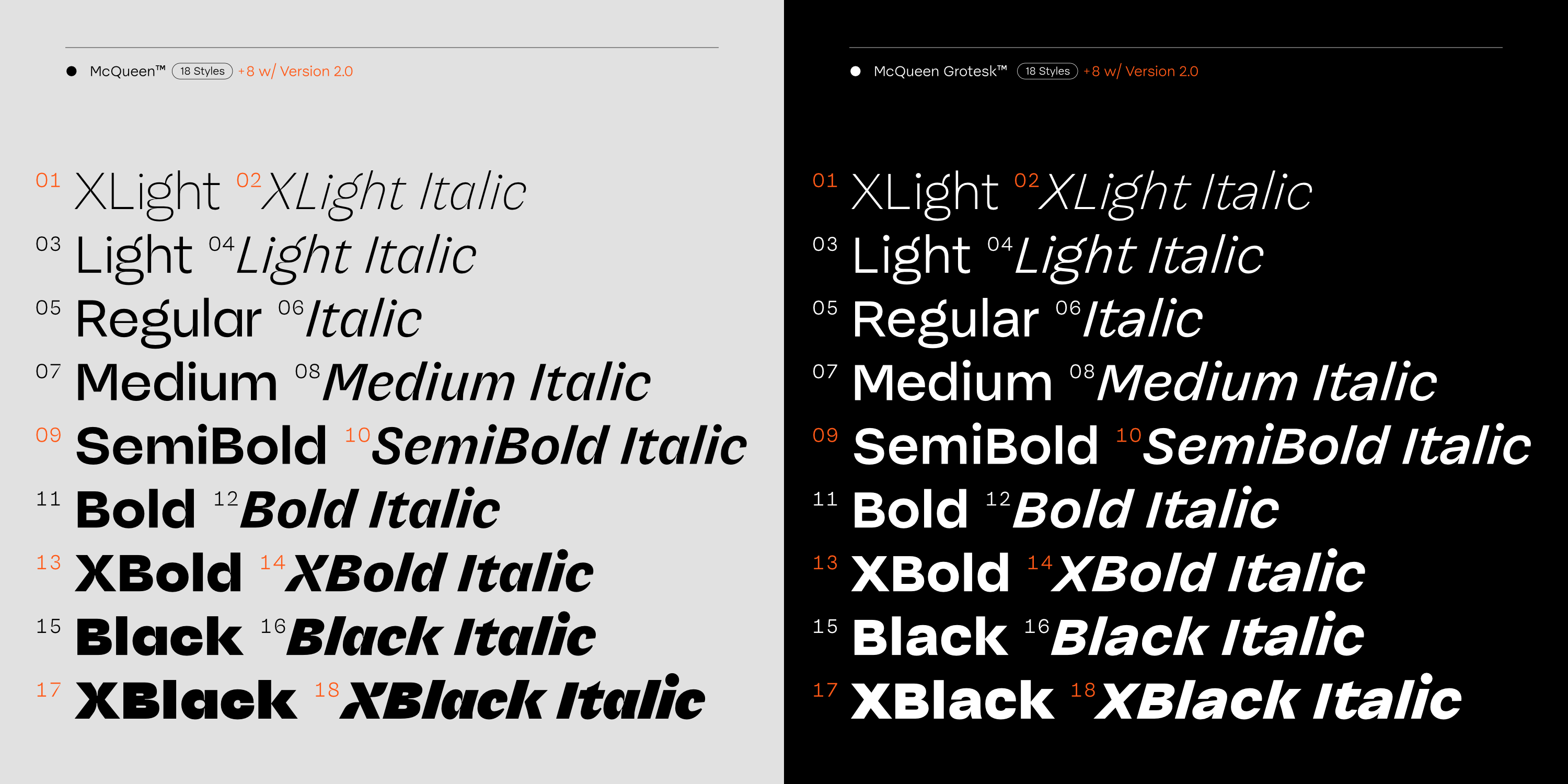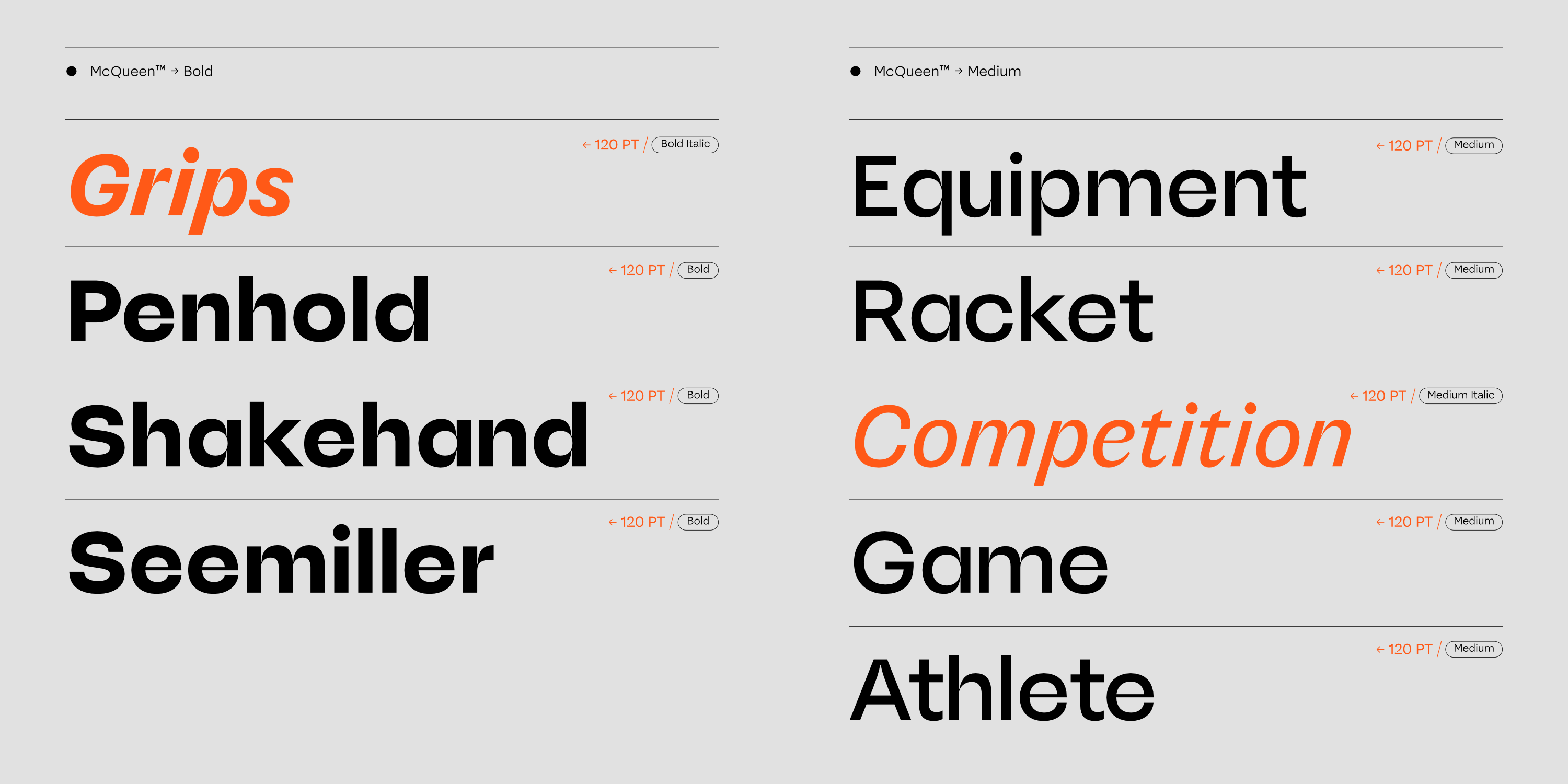
News of a huge update to McQueen, a beautiful in-use case of McQueen in action and Romaine features as our Big Glyph star of the month
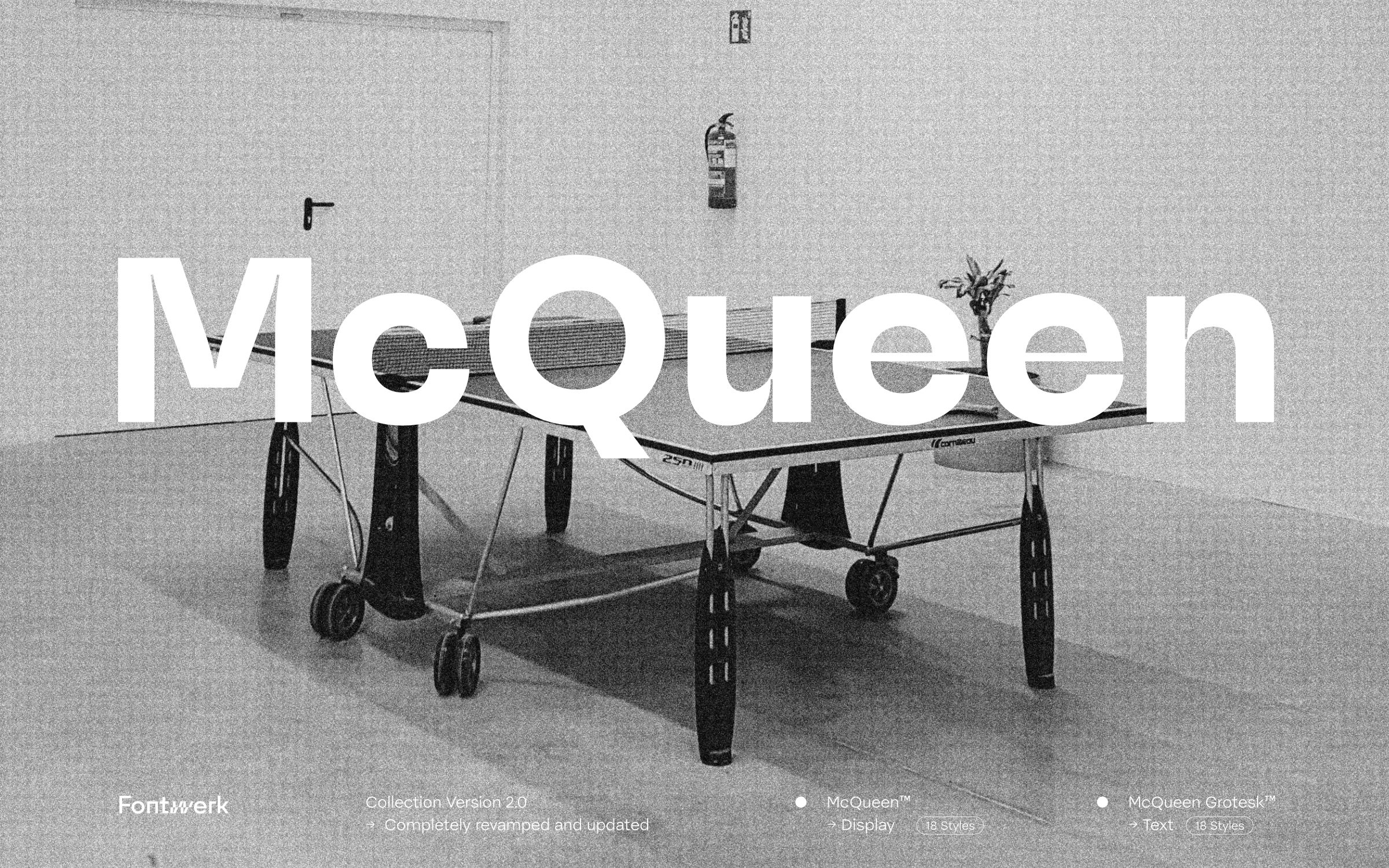 | MCQUEEN REVAMPED AND REIMAGINED |
As we ease our way into 2024, we’re looking forward to this new year with a renewed appreciation for doing what we love. We’ve started this year in deep work mode, busy behind the scenes working to bring some brand new fonts to the mix as well as welcoming some exciting updates and new additions to the Fontwerk family (more on that soon). In this Werknews, we share news of a huge update to McQueen, a beautiful in-use case of it in action and Romaine features as our Big Glyph star of the month. |
| | Welcome McQueen 2.0: fitter, faster and more fabulousMcQueen is one of our most eccentric and eclectic typefaces to date – a popular anti-hero with two faces. Designed by the veritable type-tastic trio of Loris Olivier, Noheul Lee and Katja Schimmel, McQueen is full to bursting with character and swagger. In this latest and extensive revision to the Collection, Olli Meier joins the already diverse group of designers. Olli lends his hand to completely revamping and updating the family by harmonizing all characters, creating eight new styles for both McQueen and McQueen Grotesk and optimizing the variable font into one overarching font with ‘Optical Size’ axis. Both McQueens clamor for attention but with different game plans. While McQueen is like an outfit from Lady Gaga – showy, spectacular, stage ready, McQueen Grotesk is like a pair of modern sneakers – in it for the long run. When paired together they complement each other perfectly. If you didn’t have the typeface on your radar before, now is the best time to test drive it. Existing customers receive discounted conditions for the extensions on request. | |
| | “McQueen’s playful and distinctive design adds a touch of creativity and uniqueness to the brand, making it memorable.” says Designer Amandus Engh Bjerk. | |
| | McQueen adds a playful edge to AiconoTax needn’t be taxing and when it comes to expanding a business in an ever-evolving world, high growth companies need more than just accounting, they need insights and business intelligence. Enter Aicono, a Norwegian-based startup that provides auditing and tax consulting for tech companies. When looking to create a brand that would help articulate their message, the design company Edge Branding found a match in McQueen, specifically the Light, Medium and Bold weights and employed it across the visual identity for Aicono. As Amandus Engh Bjerk, senior designer at Edge Branding explains: “The choice of McQueen was a very conscious decision. McQueen’s playful and distinctive design adds a touch of creativity and uniqueness to the brand, making it memorable.” Used throughout their branding and in both digital and analog settings, McQueen’s versatility and charm “effortlessly attracts attention.” This makes it the perfect fit for a startup that is leading the way in intelligent, future -proof accounting. | |